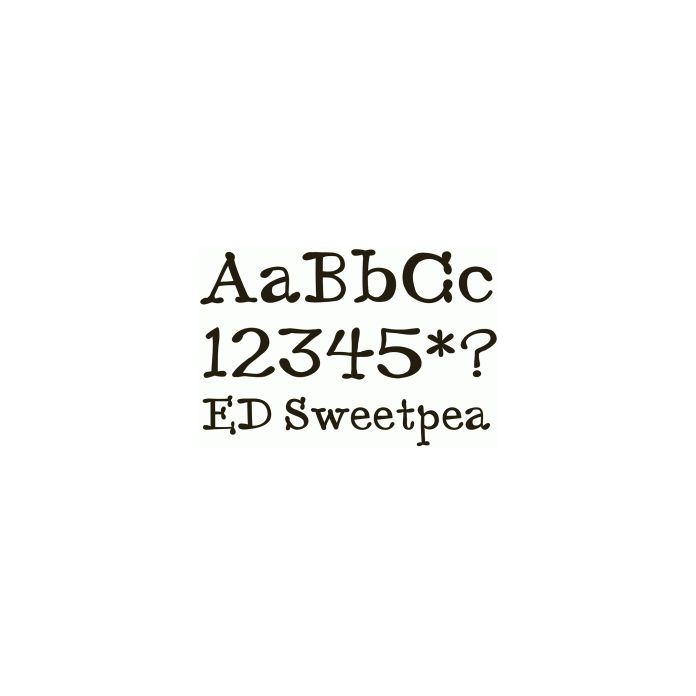
ed sweetpea font
This friendly serif style font has an appealing handcrafted look. Includes uppercase letters, lowercase letters, numbers, and basic punctuation.